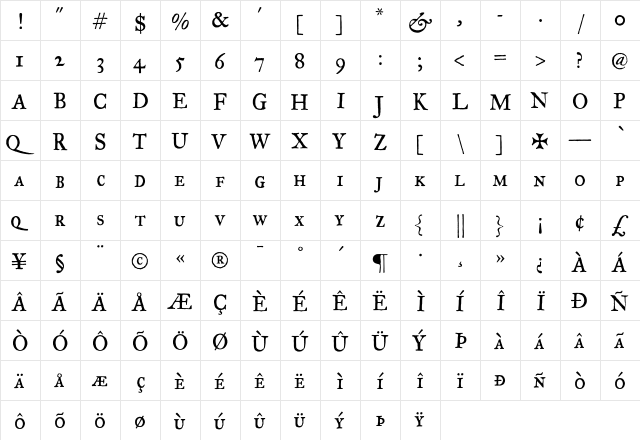
Historical FellTypeRomanSC
Design Context for Historical Typeface
Historical is a composed and adaptable typeface that performs quietly and consistently across a wide range of design contexts.